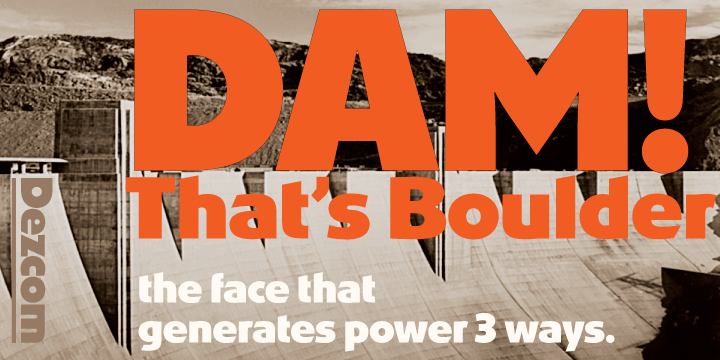
Dez Boulder
Font Family by Dezcom
Dez Boulder works like a character actor, presenting the author's lines but not with the deadpan delivery of a news reporter. Boulder develops the role, adding meaning through facial expression, gesture, and body language.
The Dez Boulder family of display faces acts in a supporting role to give meaning to message and context to content. It is a very bold face, not understated. Each of its three personalities (and their sub-personalities) have a different timbre to speak the nuance of your message in a bold voice.
Dez Boulder averages more than 800 glyphs per style with uppercase, lowercase, small caps, proportional lining figures, small cap figures, superiors, inferiors, fractions, stylistic sets, alternates, ordinals, case specific punctuation, and more. It has a full range of diacritics and covers all European languages using the Latin script.